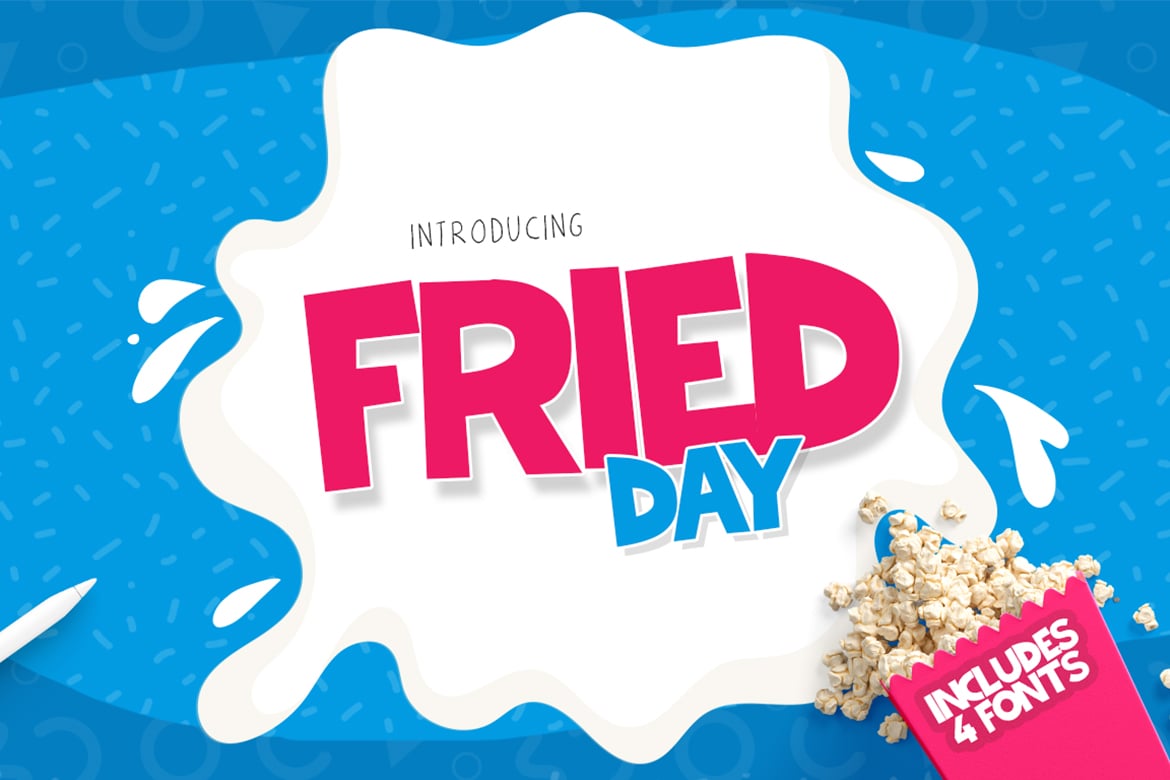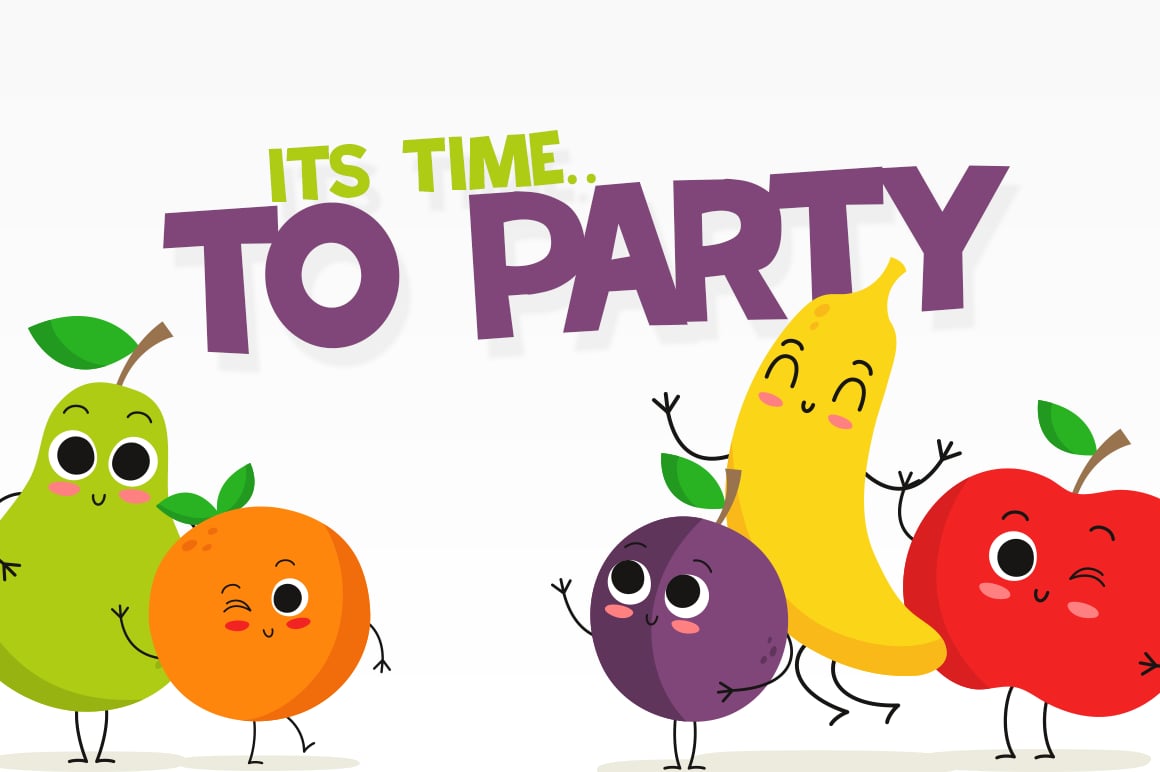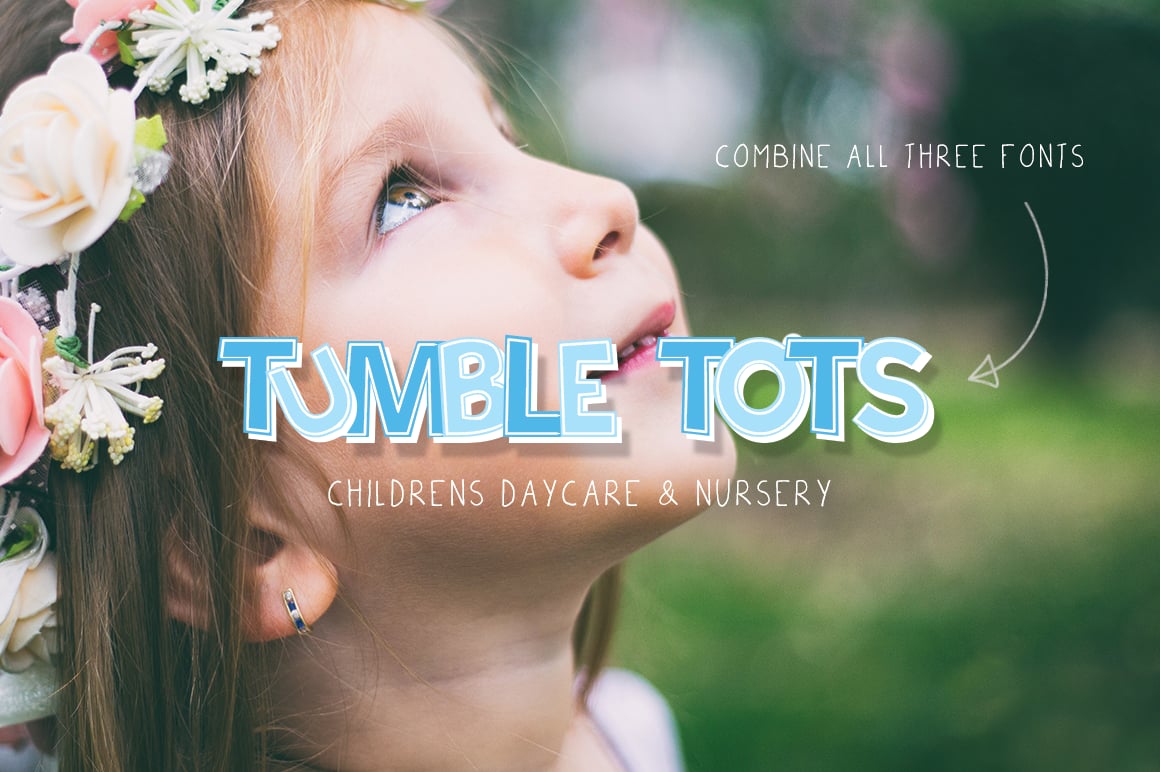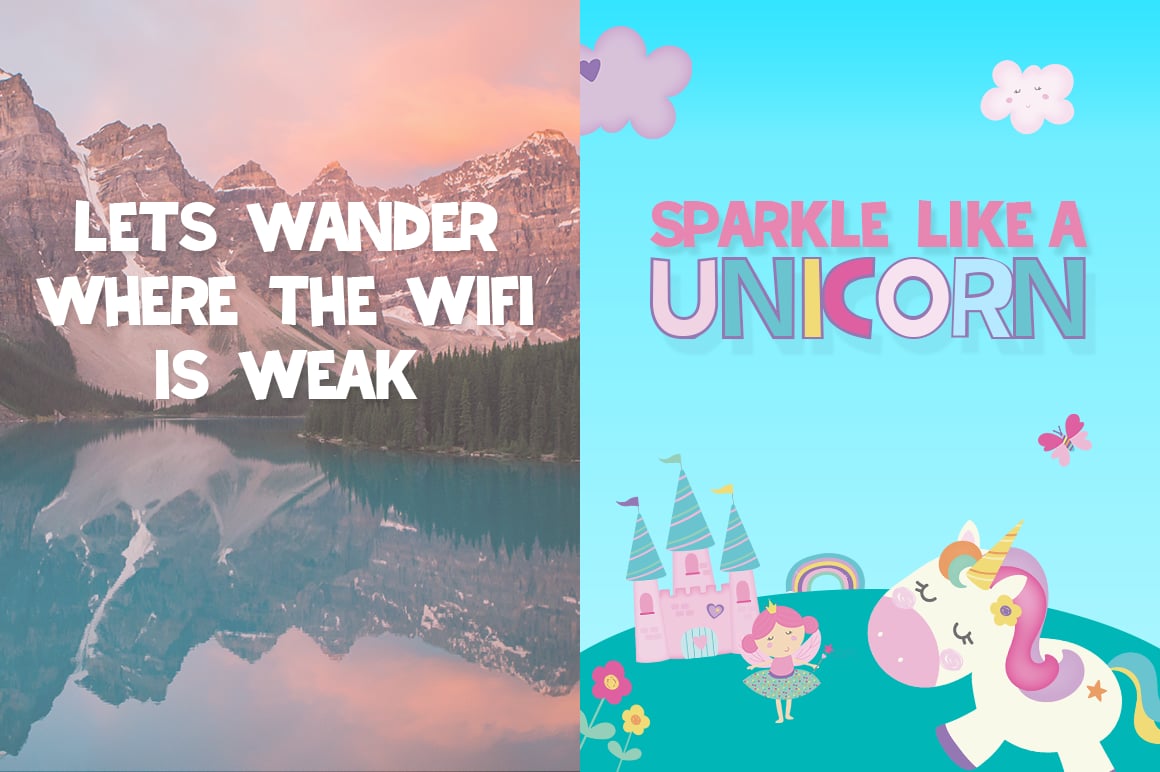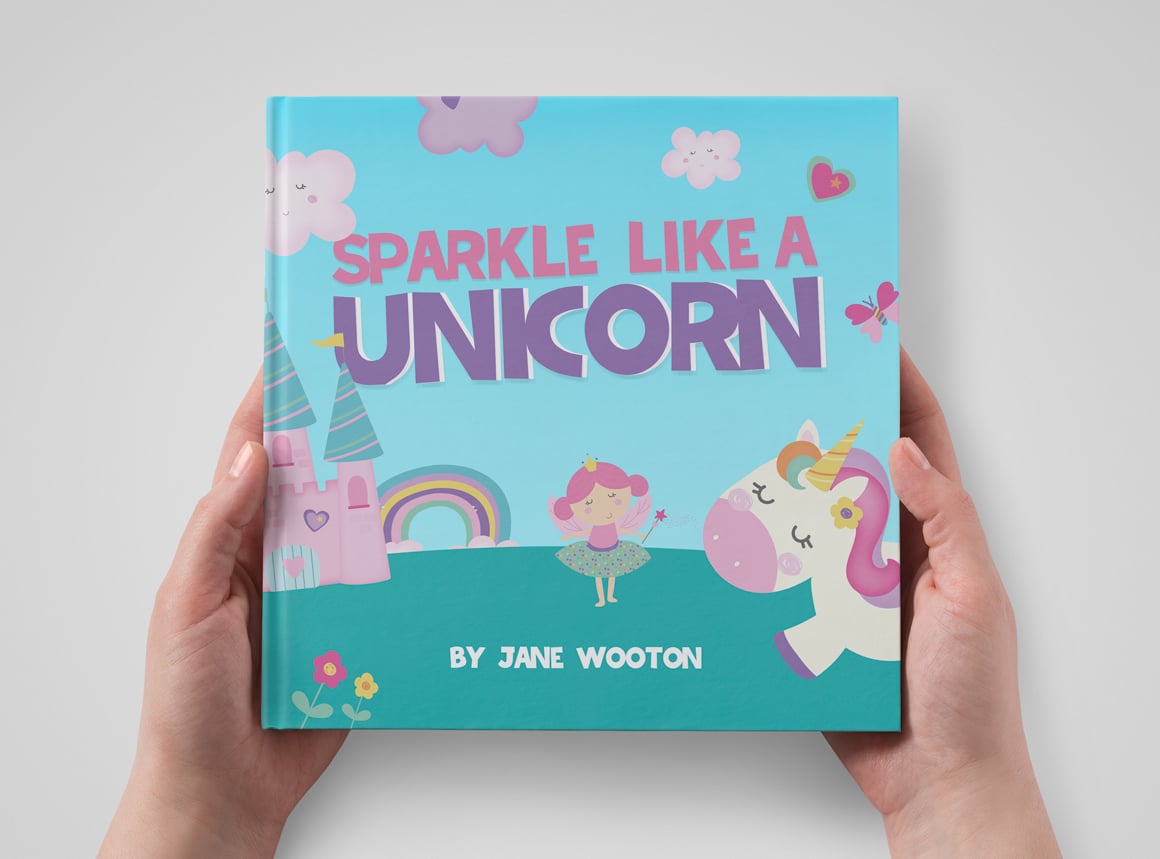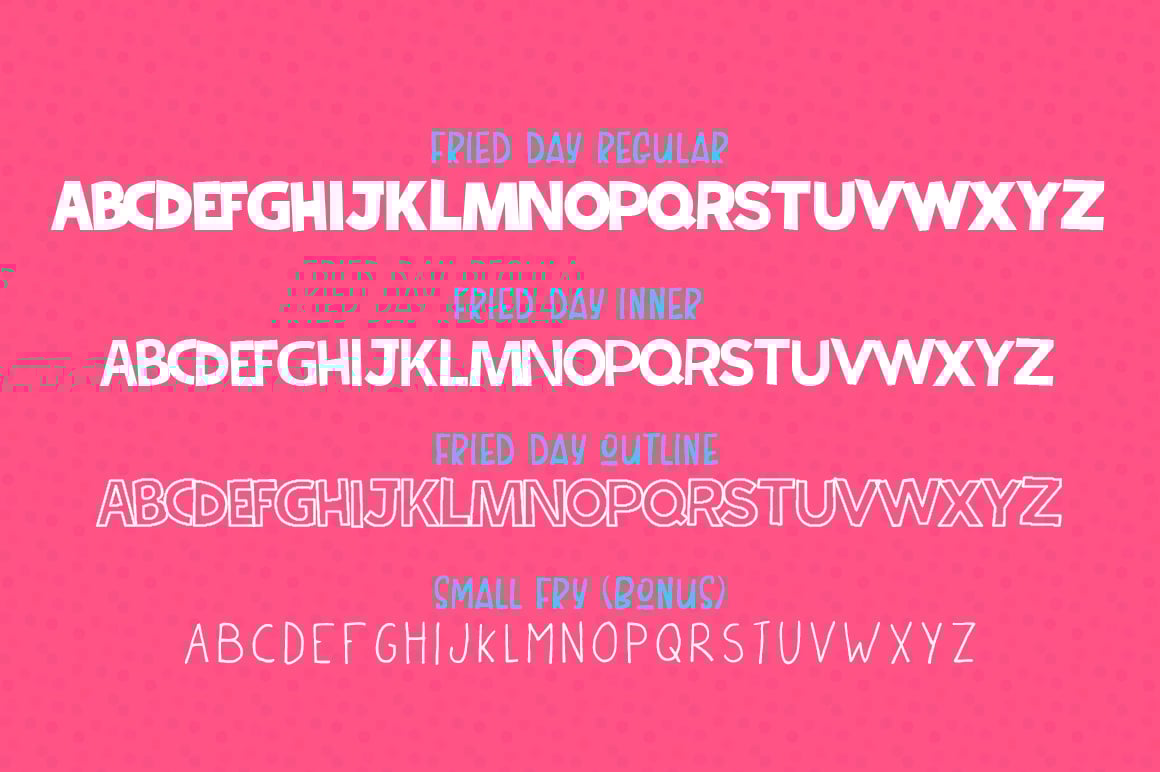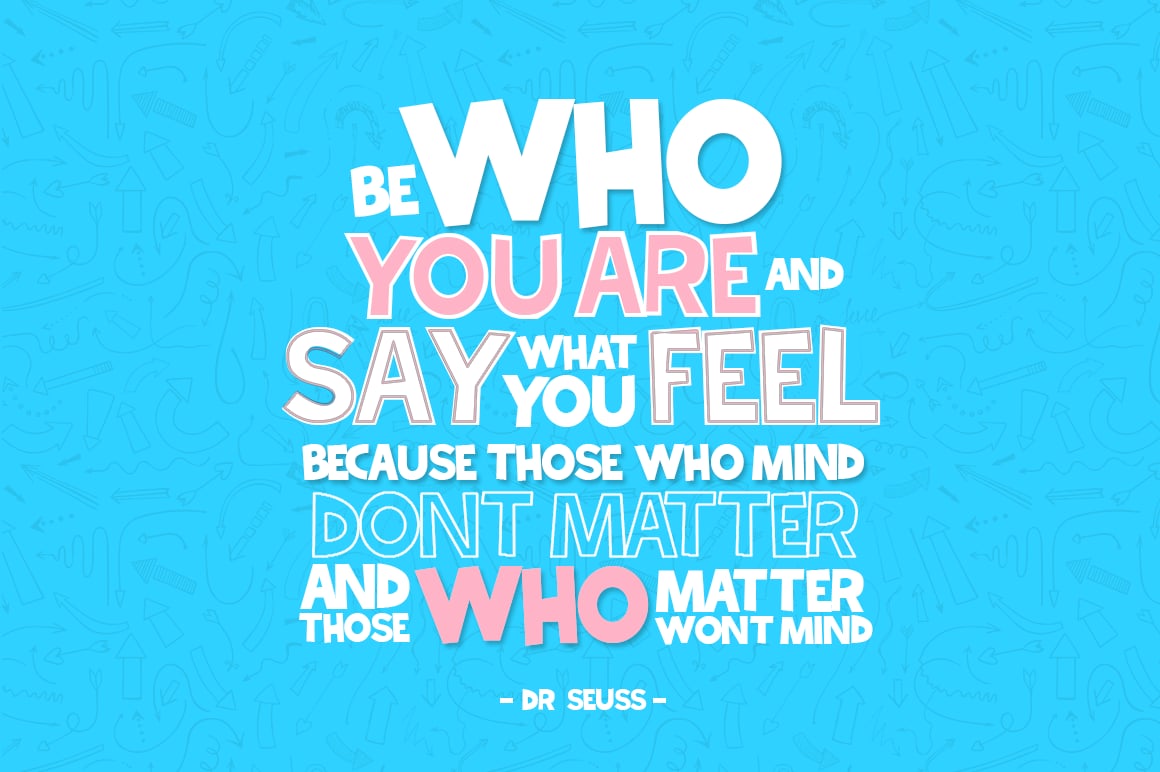
Fried Day Font
The Fried Day (get it?…Okay yeah, its not that funny) Font family is a brand new trio of fonts. This super cute family can be combined in a range of ways to give you a whole collection of effects for your work. Use the Regular font alone, or layer over the inner or outline fonts for different styles.